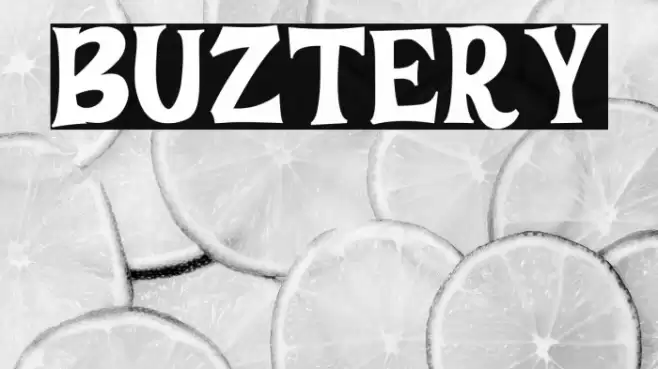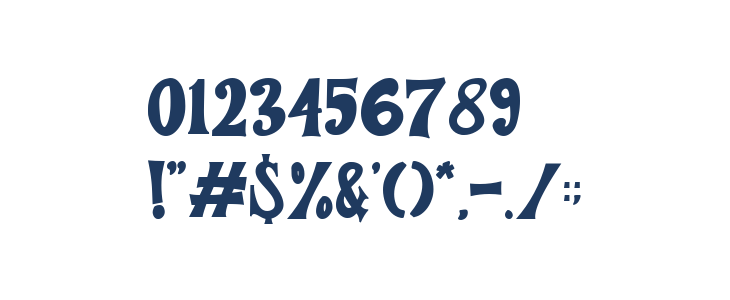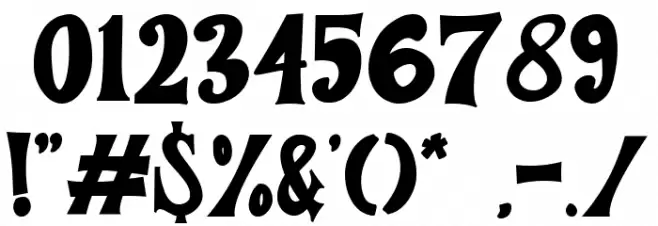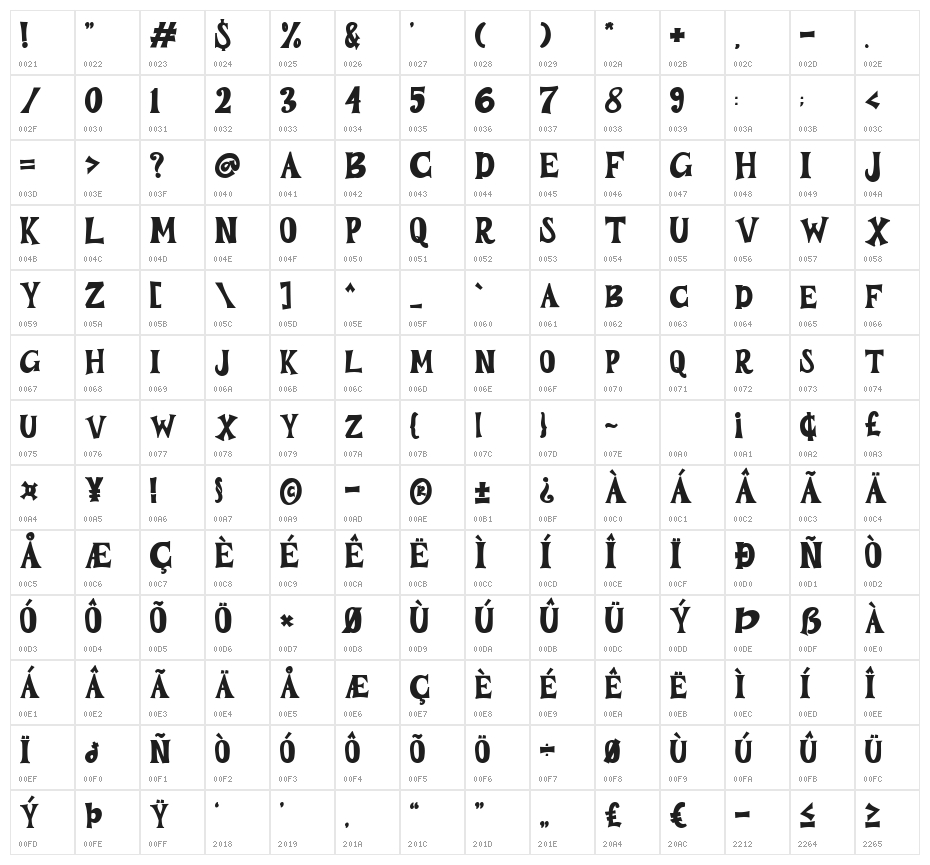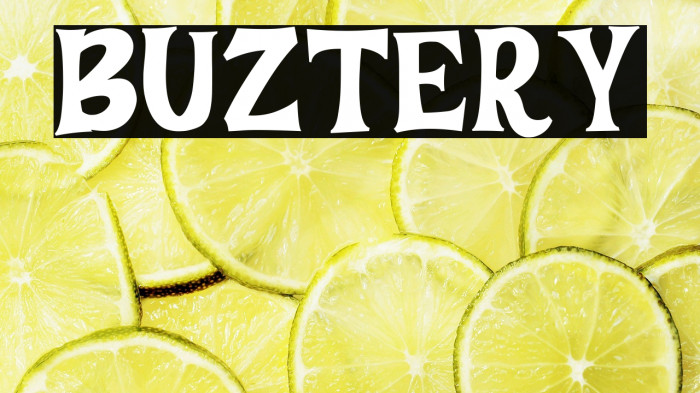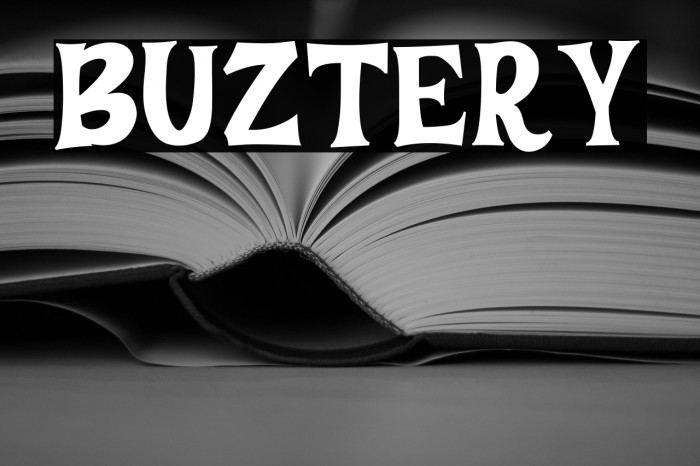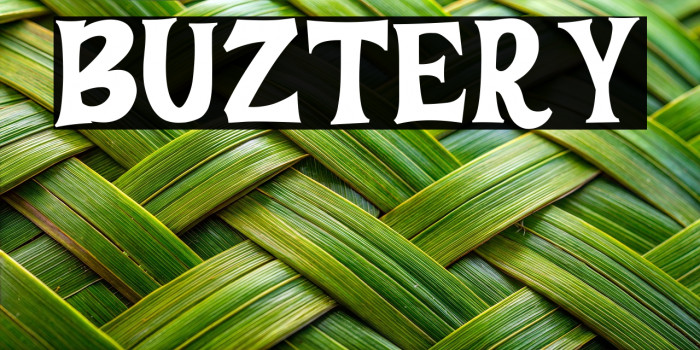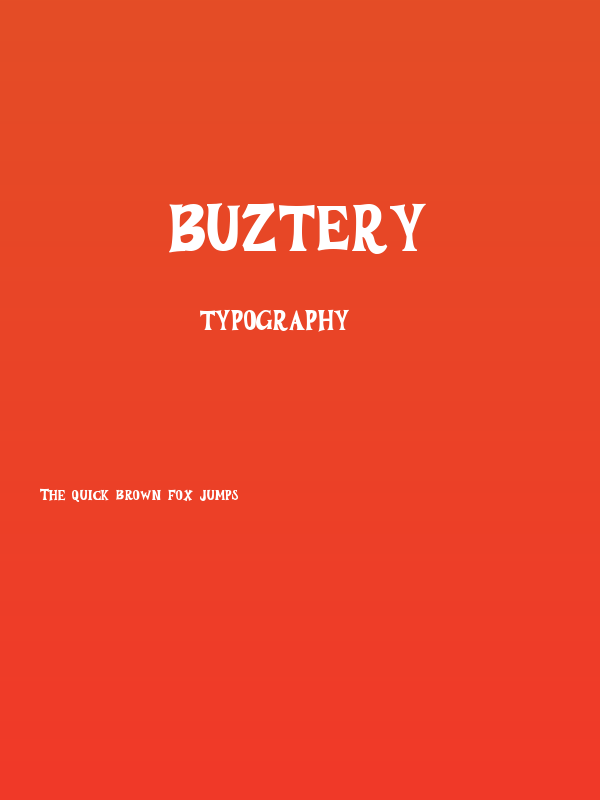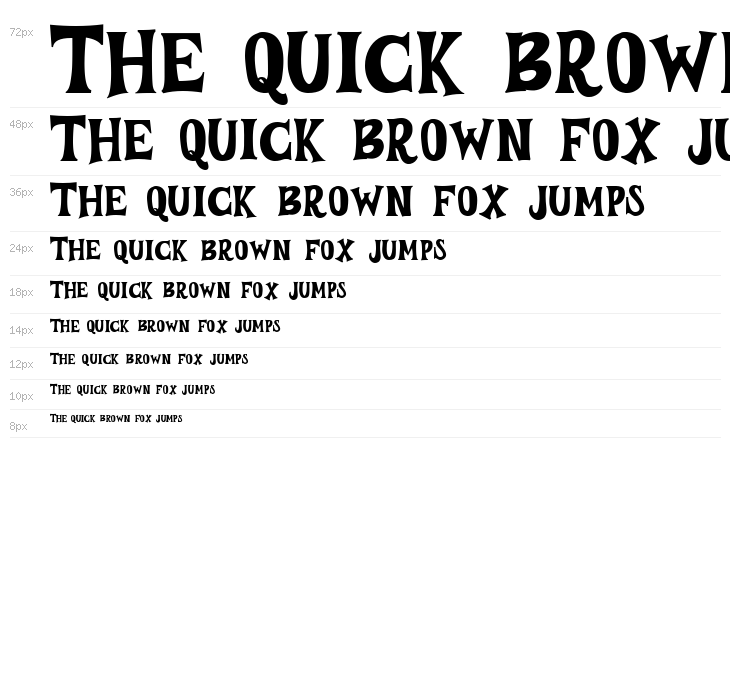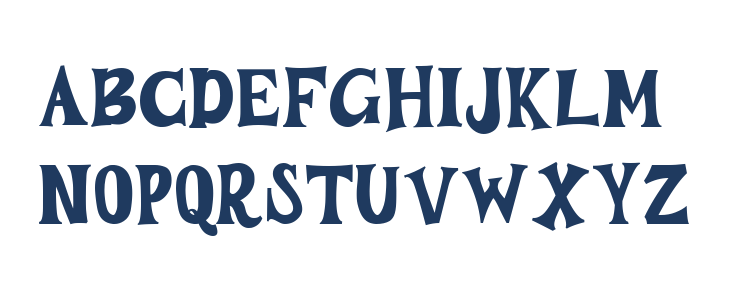
BUZTERY Font
BUZTERY Description
This font features a bold and dynamic style with a playful, slightly whimsical appearance. The characters have a hand-drawn quality, with exaggerated curves and varying stroke widths that add a sense of movement and energy. The uppercase letters are particularly striking, with their bold presence and unique flair. The lowercase letters maintain the same lively aesthetic, ensuring consistency throughout. Numbers and special characters are equally expressive, making this font versatile for various creative applications. Its distinctive style makes it stand out, perfect for projects that require a touch of personality and flair.
A bold, playful font with a hand-drawn, whimsical style from Uncategorized fonts.
- Proposed Projects: Ideal for posters, branding, children's books, and creative advertising.